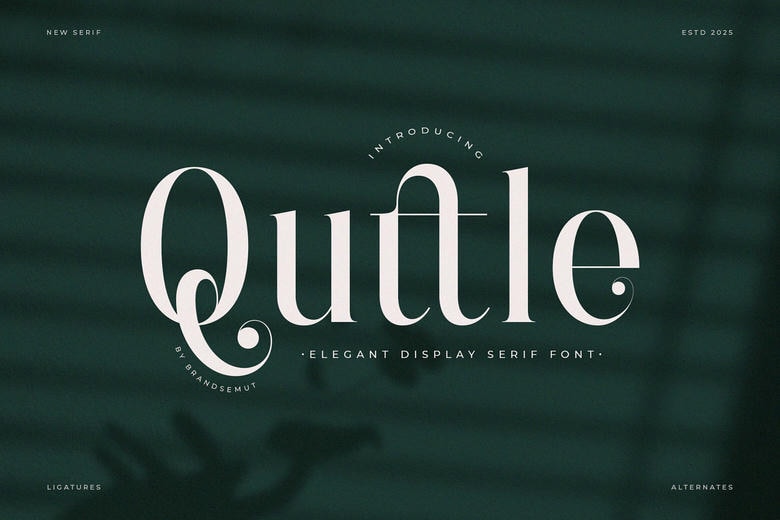
Quttle Font
Quttle font is a modern display serif font that has high contrast between thick and thin strokes, smooth curves, and carefully designed terminals. Designed to provide elegance and clarity, Quttle can be superbly used in high end headlines, elite branding, editorial titles, and premium product packaging design.
The font consists of complete uppercase and lowercase, stylistic alternates, discretionary ligatures, and multilingual support. Its extra-ordinary format blends form with function generating geometric accuracy with ornamental flair augmenting legibility and possessing artistic development.
Quttle is a professional typeface with an expansive assortment of logistic sceneries which include magazine designs, fashion lookbooks, product packaging, corporate identities, and social media designs.
Quttle Serif Font